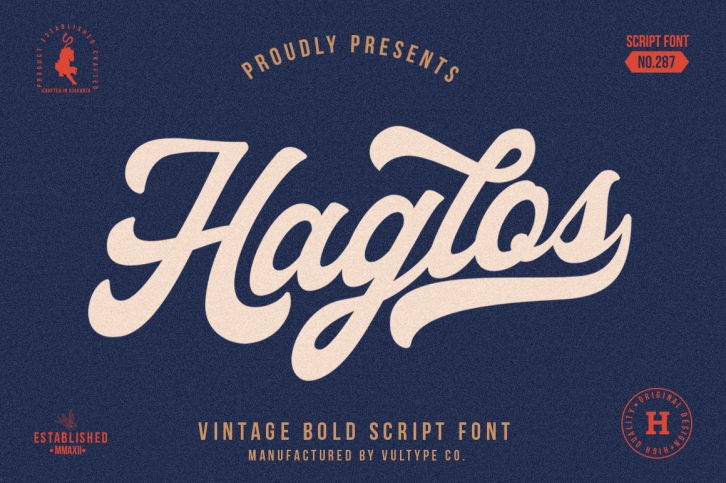
Haglos is a beautiful font that was designed by Vultype Co. It's a great choice for designers and creatives who need such a font. It was released on September 26, 2019 and the file size is 10.16 MB. Haglos may give a more youthful, expressive and casual look to your project. It is a very beautiful, refined, elegant, and high-quality font.